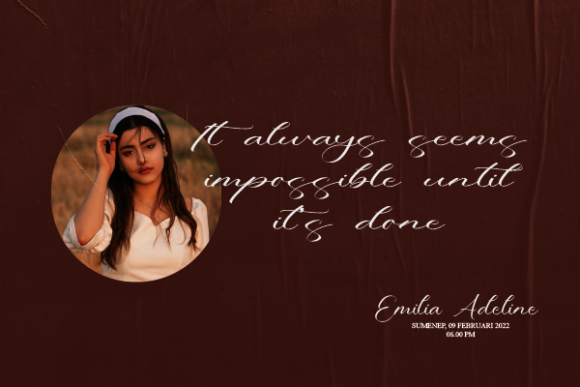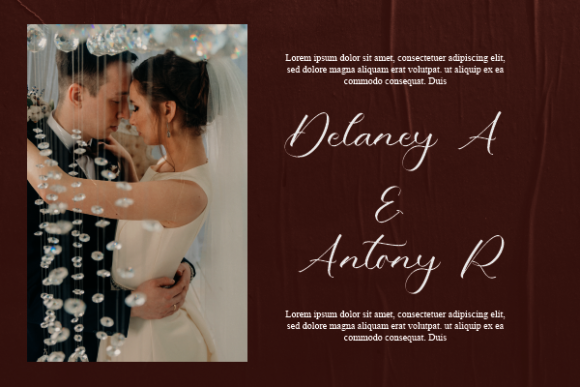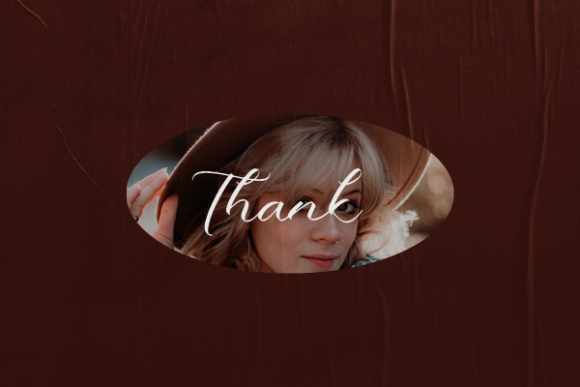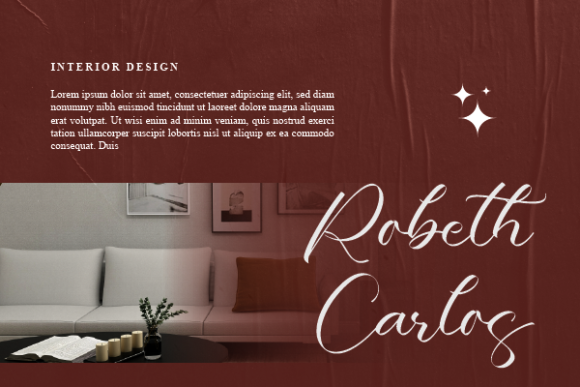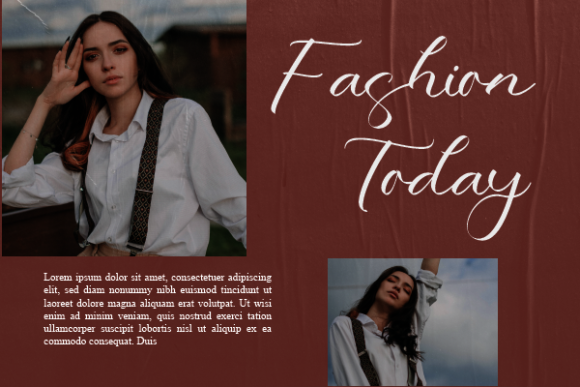
About Paterson Nolan Font
Paterson Nolan is a flowing handwritten font, described by an elegant touch, perfect for your favorite projects. Fall in love with its incredibly distinct and timeless style and use it to create spectacular designs!